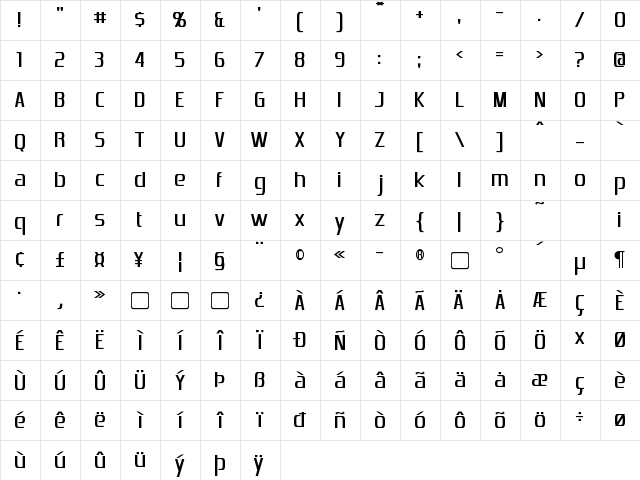
Emotion Engine Regular
| Foundry | Neale Davidson |
| Designer | Neale Davidson |
Design Context for Emotion Engine Typeface
Emotion Engine offers clean, dependable letterforms without strong stylistic allegiance, making it a practical choice for designers who need flexibility.